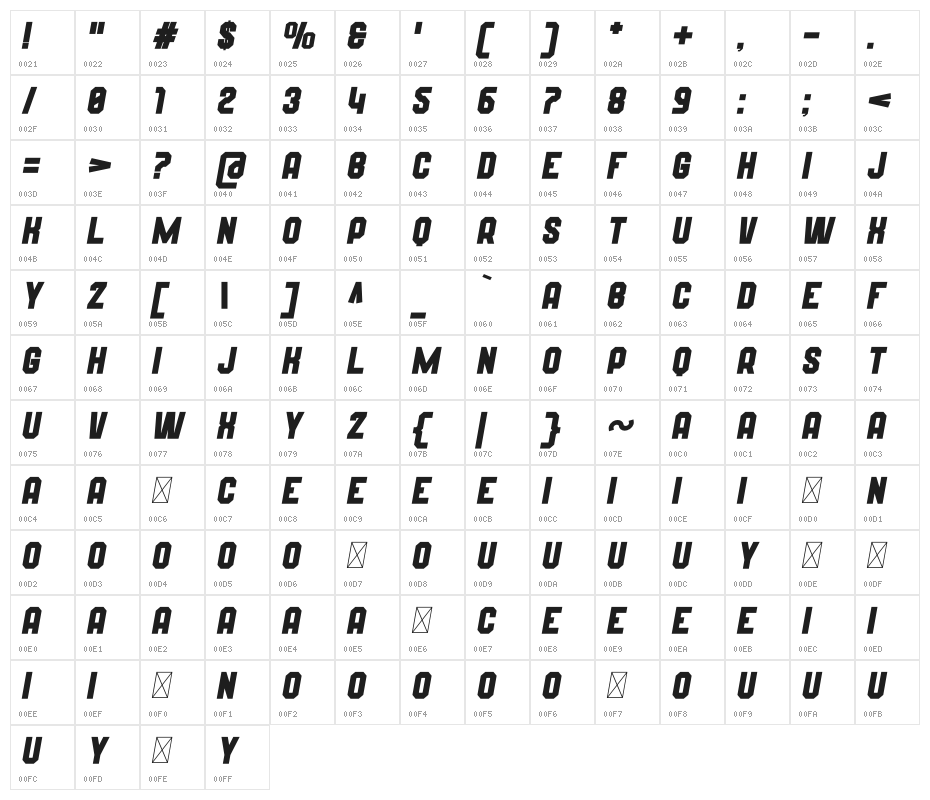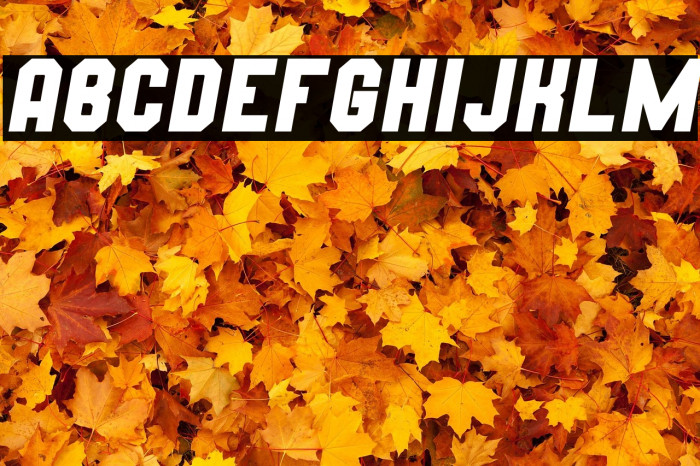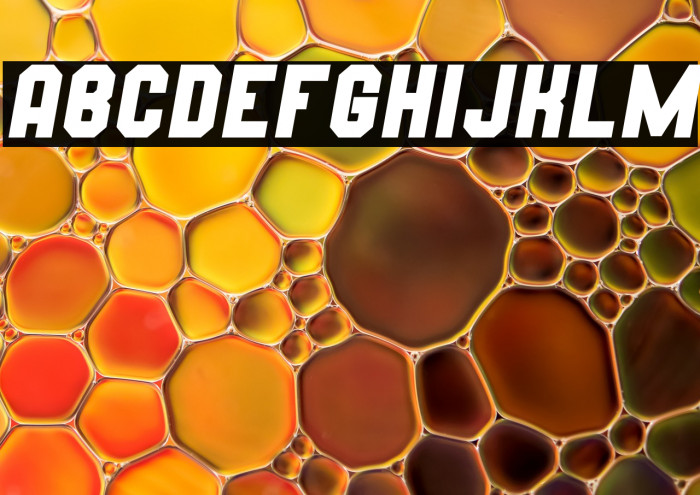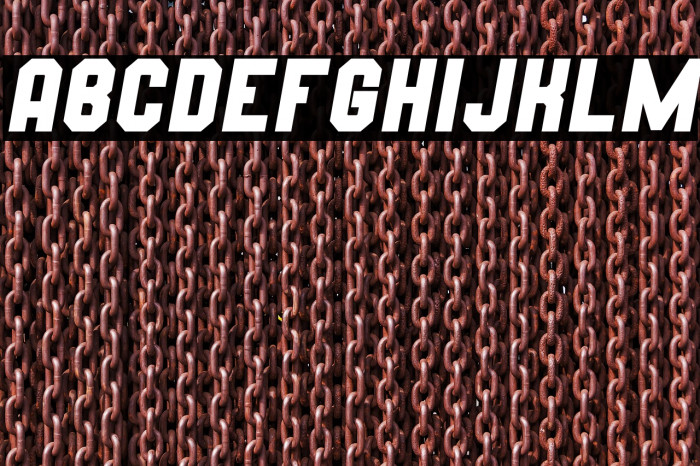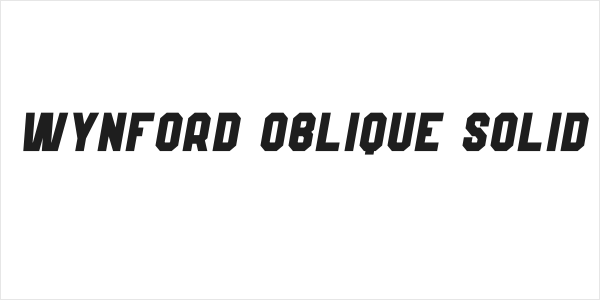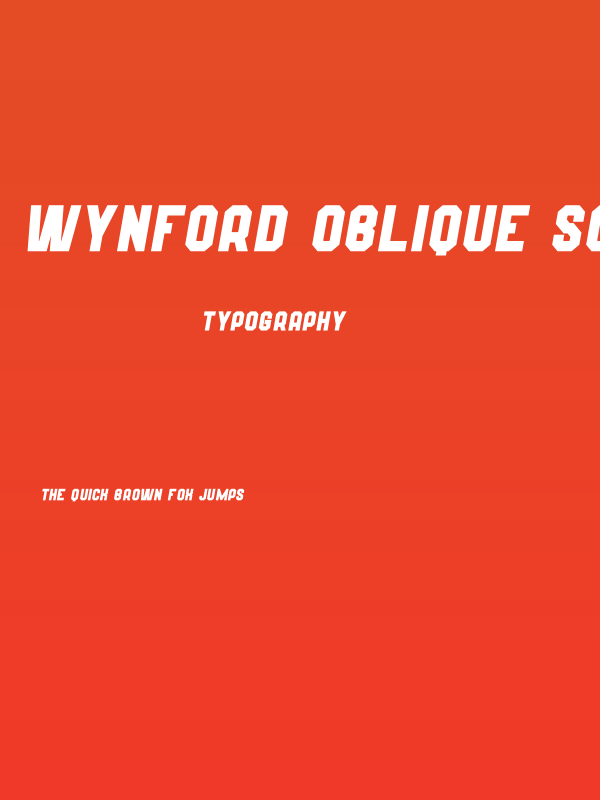
Wynford Oblique Solid Font
Wynford Oblique Solid Description
This font features a bold, oblique style with solid, angular letterforms that convey a sense of strength and dynamism. The uppercase and lowercase letters maintain a consistent slant, enhancing the font's energetic appearance. The numbers and special characters follow the same design principles, ensuring uniformity across all glyphs. The font's geometric shapes and sharp edges make it stand out, ideal for attention-grabbing designs. Its boldness and oblique nature suggest a modern and assertive aesthetic, suitable for impactful visual communication.
| Proposed Projects | Ideal for sports branding, posters, headlines, and any project requiring a strong, modern look. |